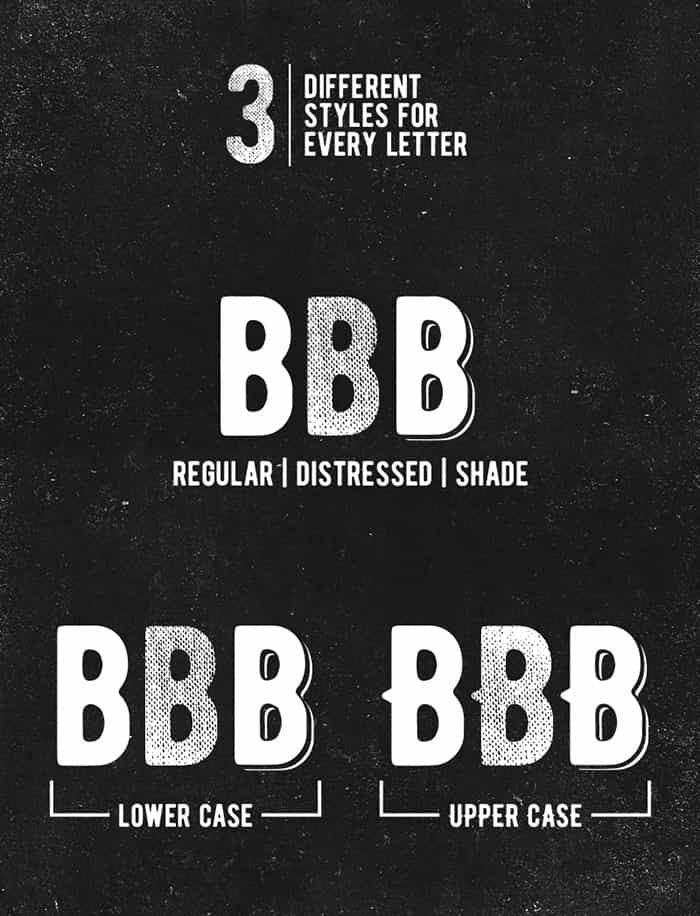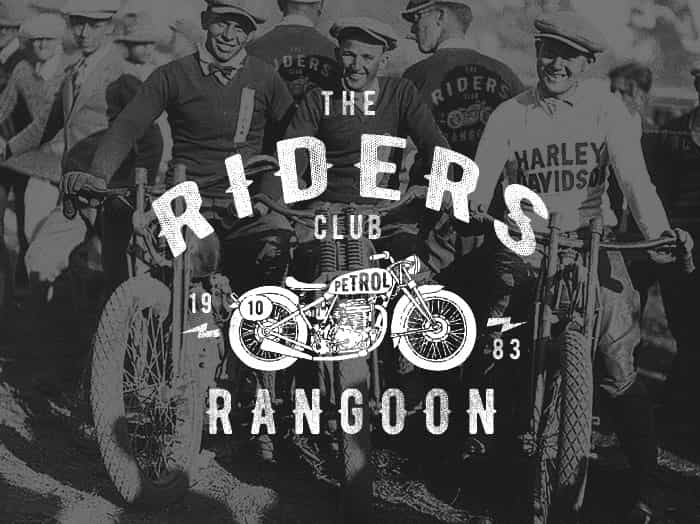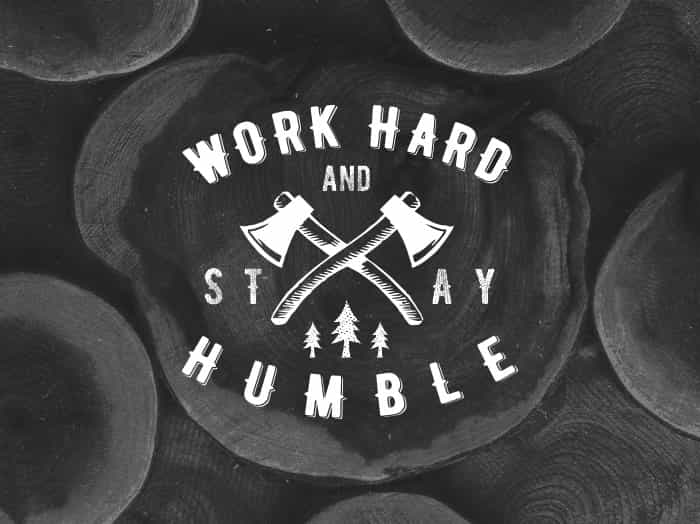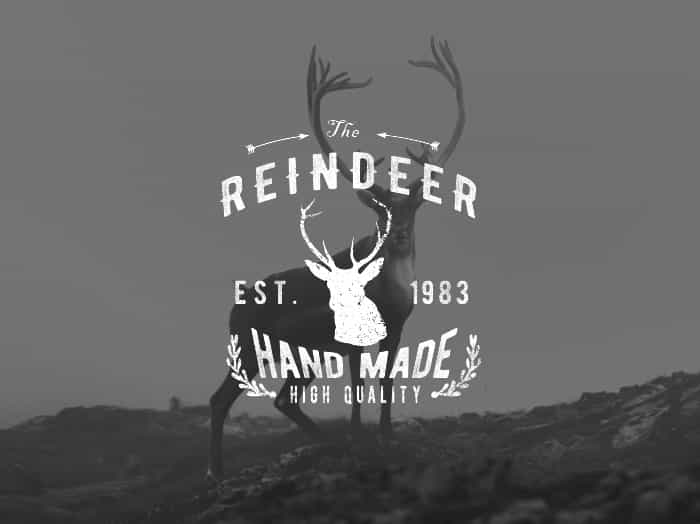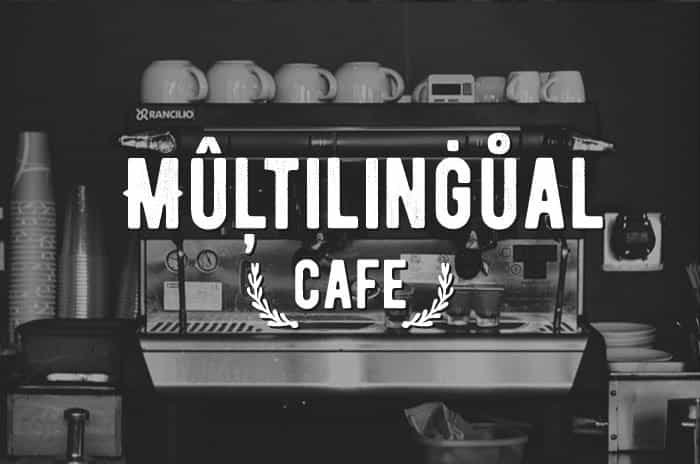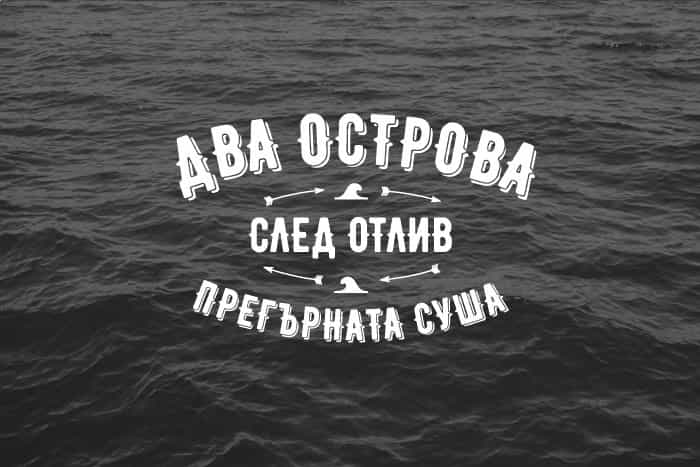
Bernier Font Free
BERNIER(tm). It is a vintage look font that is freely downloadable and is available in three styles; Regular, Distressed and Shade. Great for logos, retro pins and retro text! Enjoy Kirilitsa nalichna!